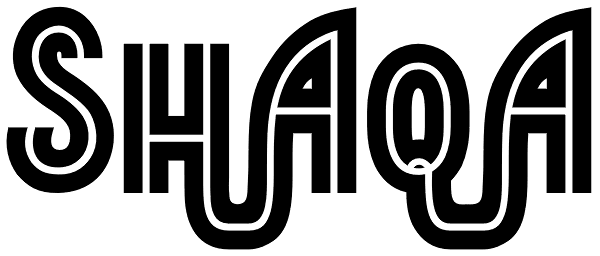
ShAqA
Shaqa is a bold and beautiful inline typeface designed by Natsuko Hayashida in 2014. The eye-catching poster style of Shaqa has a graphic quality which is especially well suited for strong headlines and titles. Shaqa matches well with the Komela...